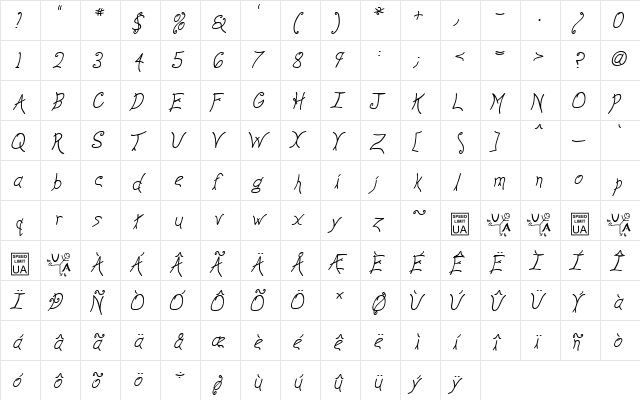
Anyway Italic Font Preview
Anyway Italic
Design Context for Anyway Typeface
Anyway is a composed and adaptable typeface that performs quietly and consistently across a wide range of design contexts. The slanted form adds forward momentum and visual energy.
Pro Tip: Try Anyway for annotation and caption copy alongside an upright companion — the contrast in angle creates a dynamic but ordered typographic system.